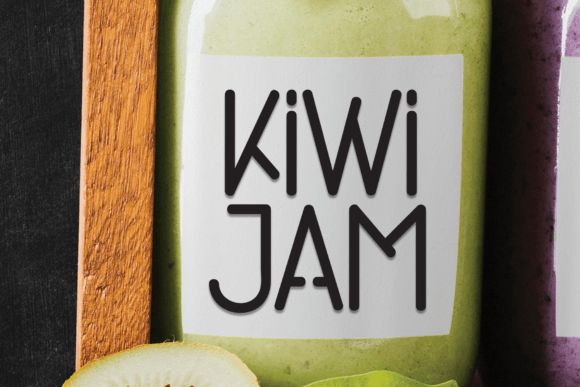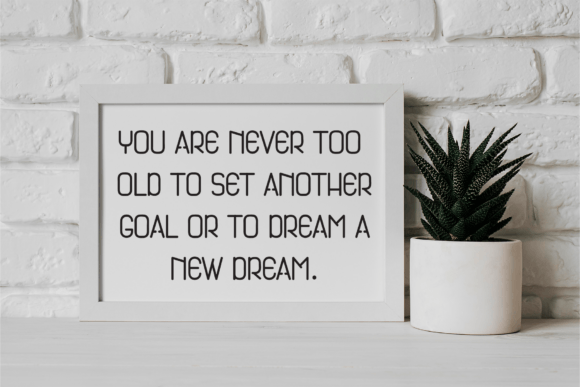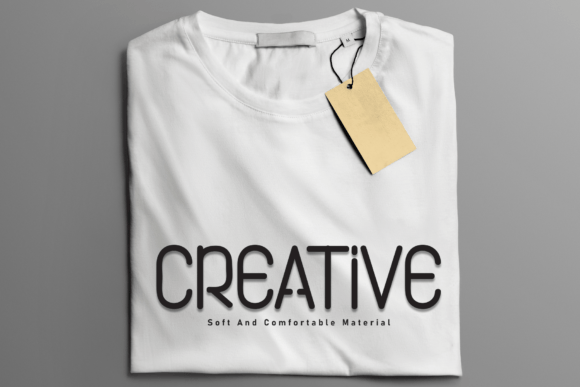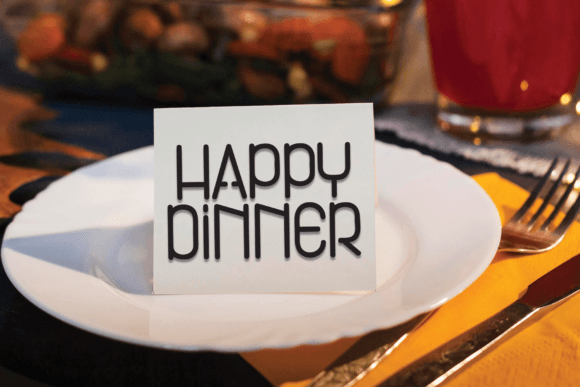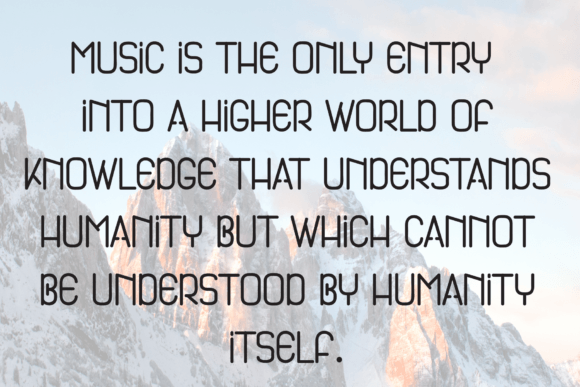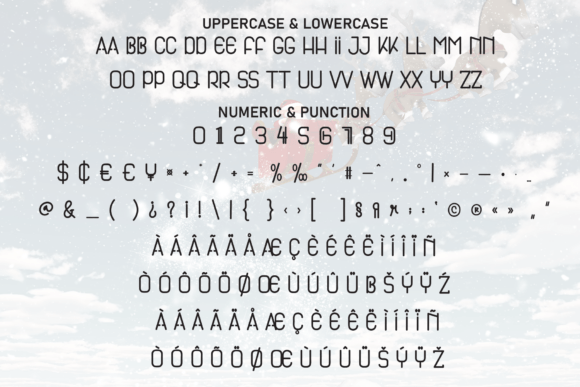
Introduction to Santa Journey Font
Step into a world of whimsy with the charming allure of our friendly hand-drawn font, crafted with sweetness and fun in mind.
Perfected for your wedding invitations, greeting cards, or any design in need of a playful flourish, this font infuses lighthearted elegance into every stroke, turning your textual expression into an aesthetically delightful experience .